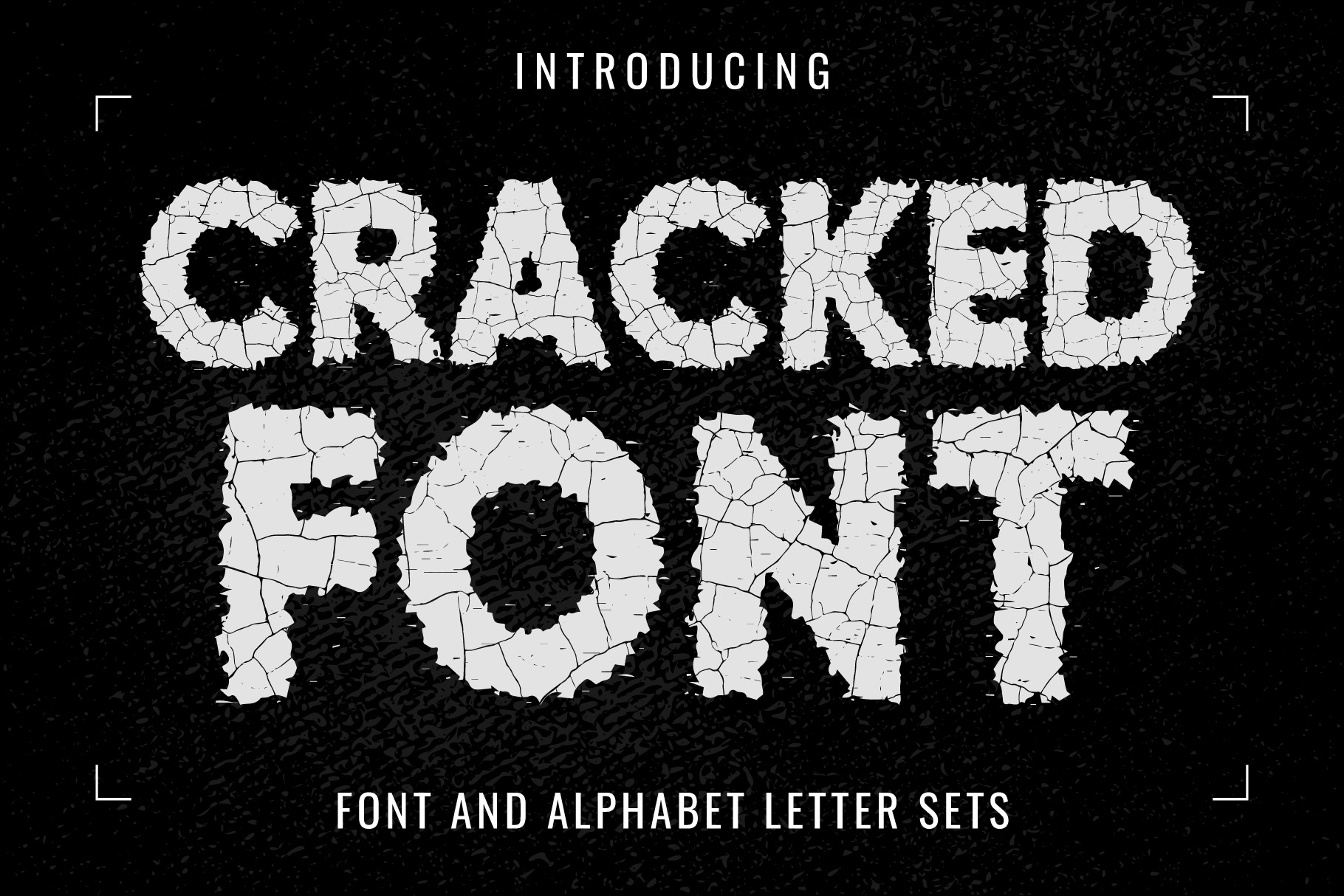
Cracked Font
Introducing “Cracked Font” – a vintage and grunge-distressed display font that will make each of your designs stand out. Perfect for logos, posters, websites, T-shirts and more. Elevate your projects with this unique font, and you will love the results.
- 2 Color font sets in the family.
- This entire font is capitalized.
- Letters: A B C D E F G H I J K L M N O P Q R S T U V W X Y Z.
- Numbers: 0 1 2 3 4 5 6 7 8 9.
- Excluding punctuation.